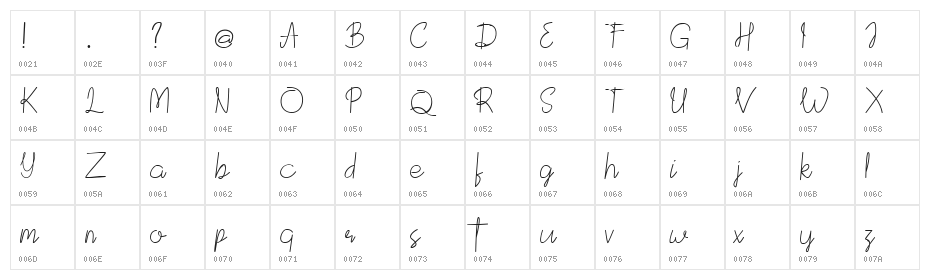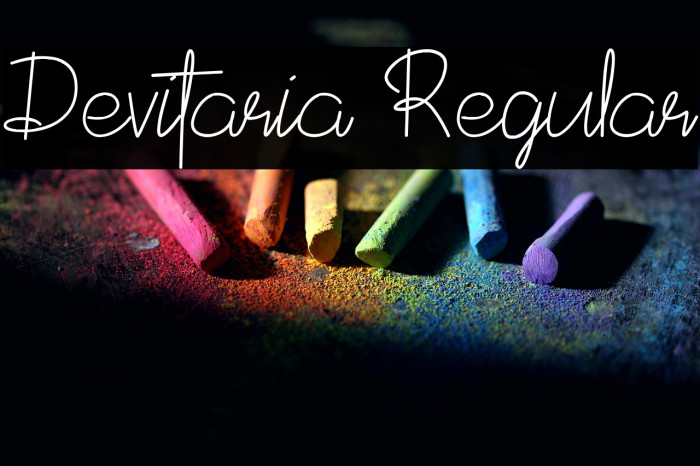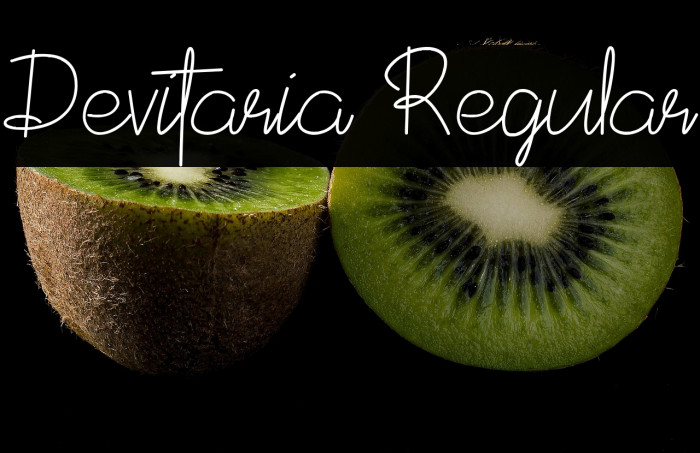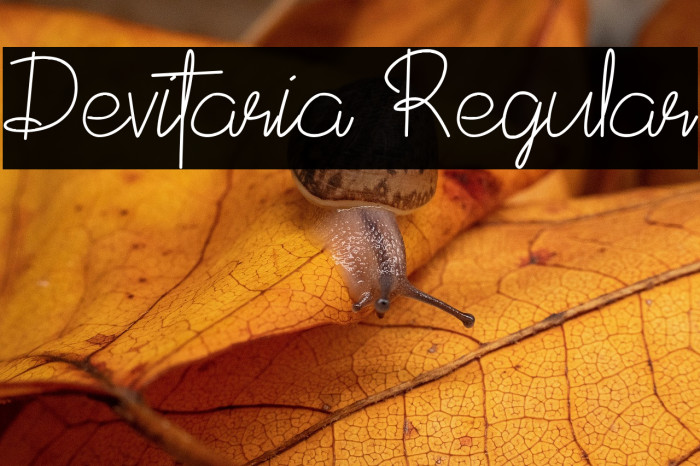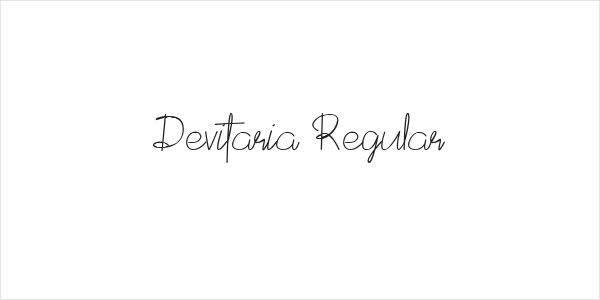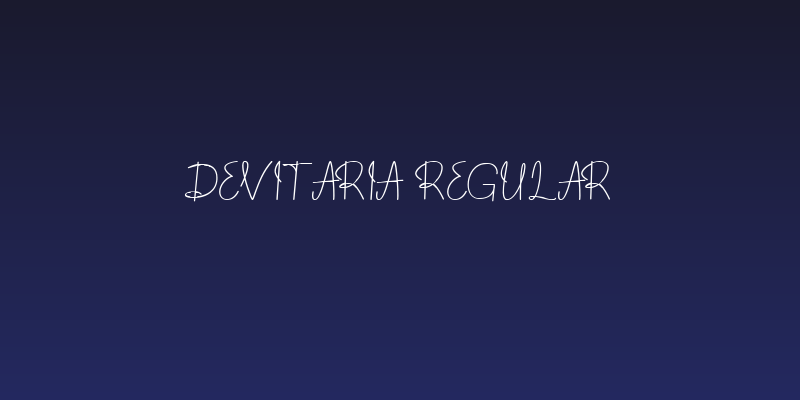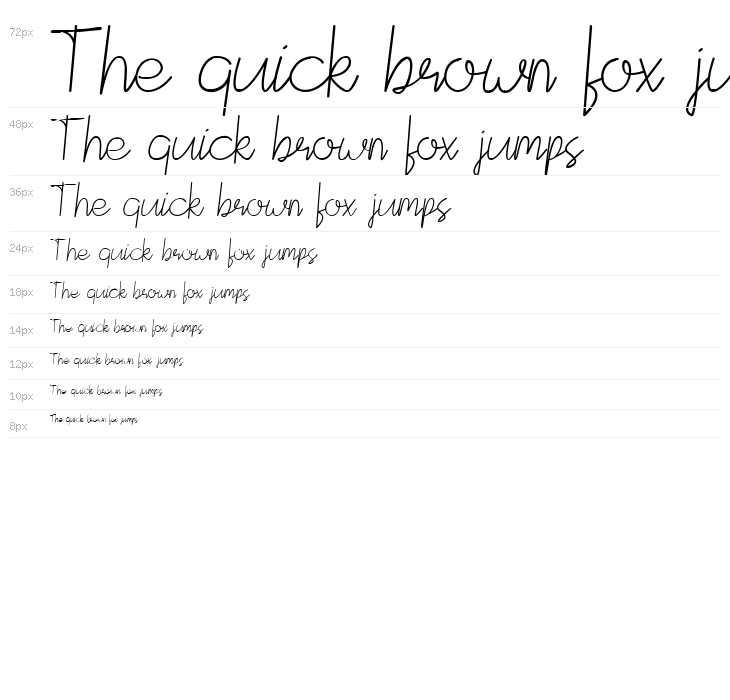
Devitaria Regular Font
This font exhibits a playful and casual handwritten style, characterized by its flowing, cursive-like strokes. The letters are slightly slanted, giving it a dynamic and lively appearance. The uppercase letters are tall and slender, while the lowercase letters maintain a consistent flow, enhancing readability. The font has a whimsical charm, with certain characters featuring unique loops and curves that add personality. The spacing between characters is moderate, ensuring clarity and legibility. This font is ideal for projects that require a personal touch, such as invitations, greeting cards, or creative branding.
| Overall Style | Casual, Playful |
| Use Case | Headlines, Creative projects, Personal branding |
| Proposed Projects | Ideal for invitations, greeting cards, creative branding, and personal projects. |